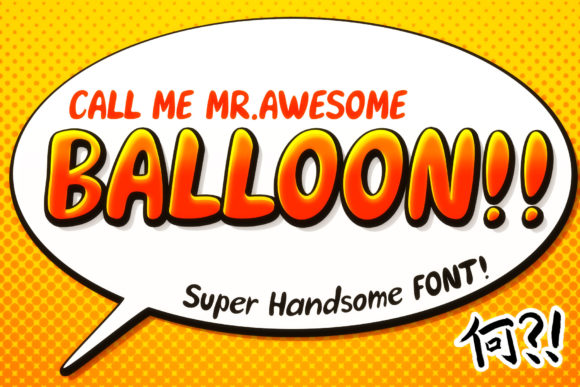
The Joy of Awesome Balloon: A Font That Brings Fun and Playfulness to Your Designs
I’ll never forget the time I was working on a project for a children’s birthday party, and I was struggling to find the perfect font to match the theme. The design needed to be fun, playful, and authentic, but every font I tried seemed either too serious or too cheesy. That’s when I stumbled upon Awesome Balloon, and it was like a breath of fresh air. The childlike style and bouncy vibe instantly captured the essence of the party, and I knew I had found the perfect fit.
An Honest Review of Awesome Balloon
- ✨ The font’s playful and carefree personality makes it perfect for designs that need a fun twist.
- ✅ The childlike style is reminiscent of handwritten notes and brings a sense of authenticity to any design.
- 💡 Awesome Balloon’s versatility makes it suitable for a wide range of projects, from party invitations to social media graphics.
While Awesome Balloon is an amazing font, there are a few things to keep in mind:
- 🤔 The font can be a bit tricky to read at smaller sizes, so it’s best to use it for headlines or titles.
- ⚠️ Some of the glyphs and special characters may not be immediately apparent, but with a little exploration, you’ll discover the full range of possibilities.
The Story Behind Awesome Balloon
Awesome Balloon was designed with the intention of capturing the carefree spirit of childhood. The designer wanted to create a font that would bring a sense of fun and playfulness to any design, and Awesome Balloon was born. With its bouncy curves and childlike charm, this font is sure to delight audiences of all ages.
Q: What type of projects is Awesome Balloon best suited for?
A: Awesome Balloon is perfect for designs that need a fun and playful twist, such as party invitations, social media graphics, and children’s book titles.